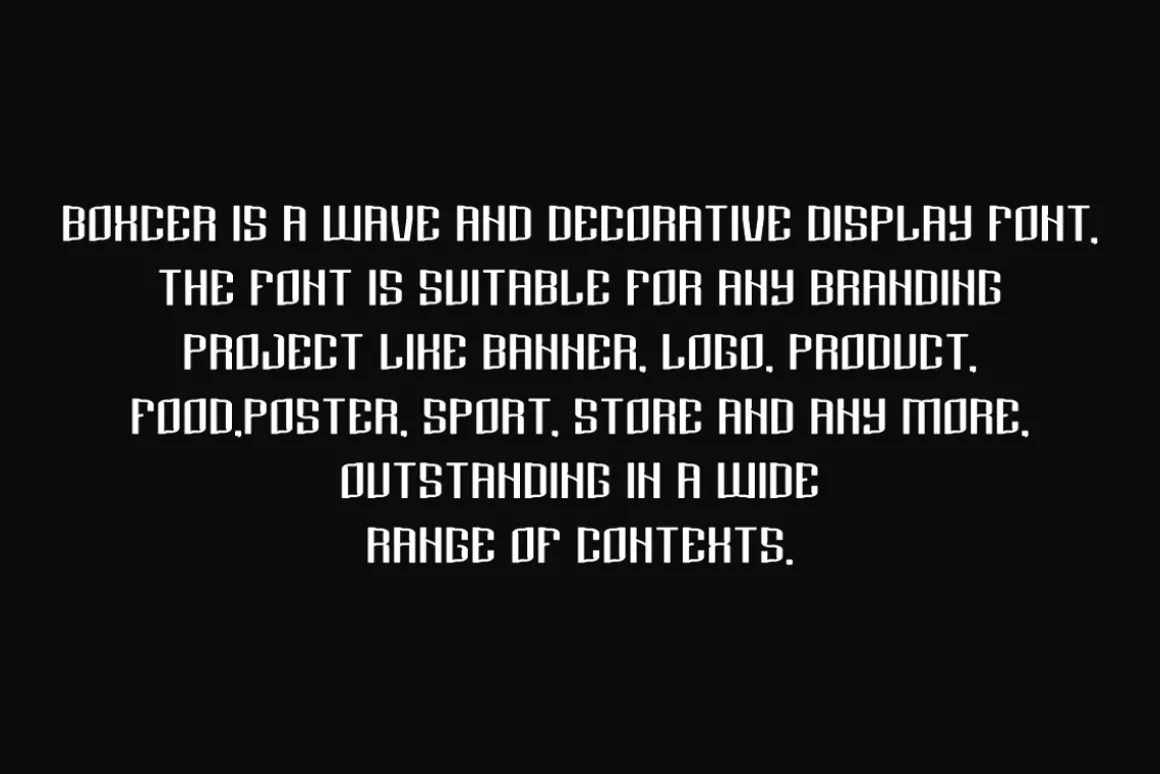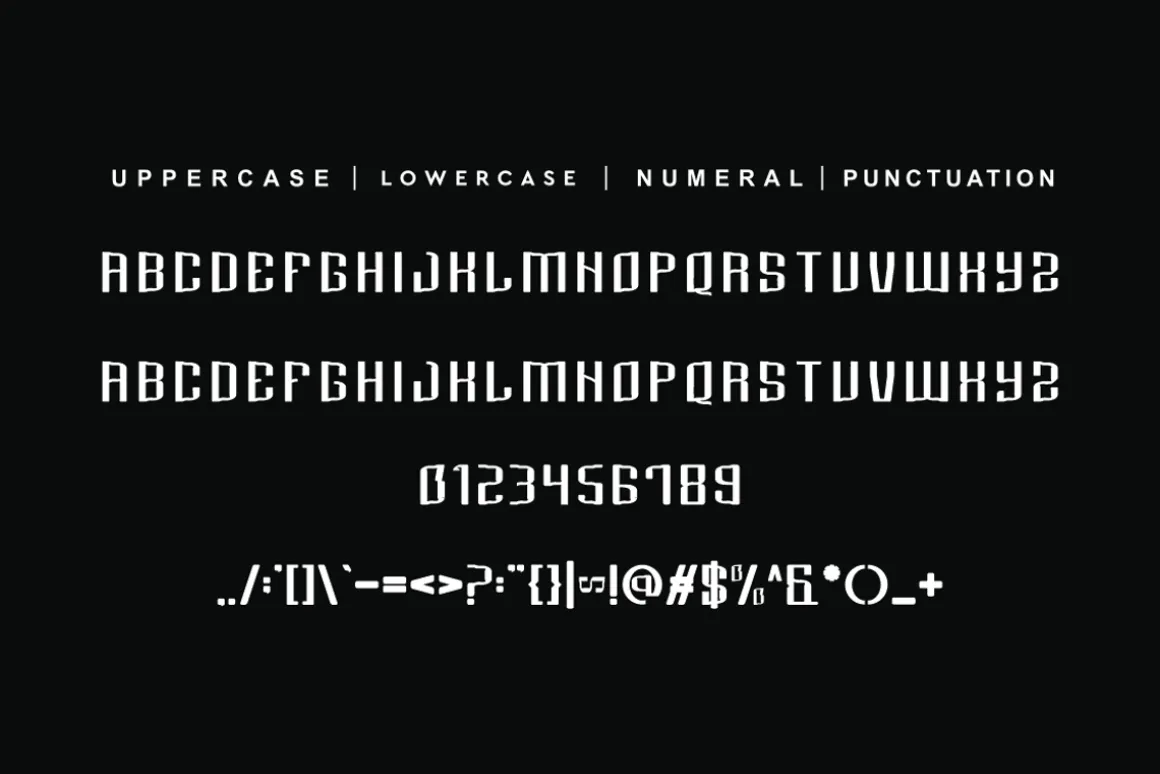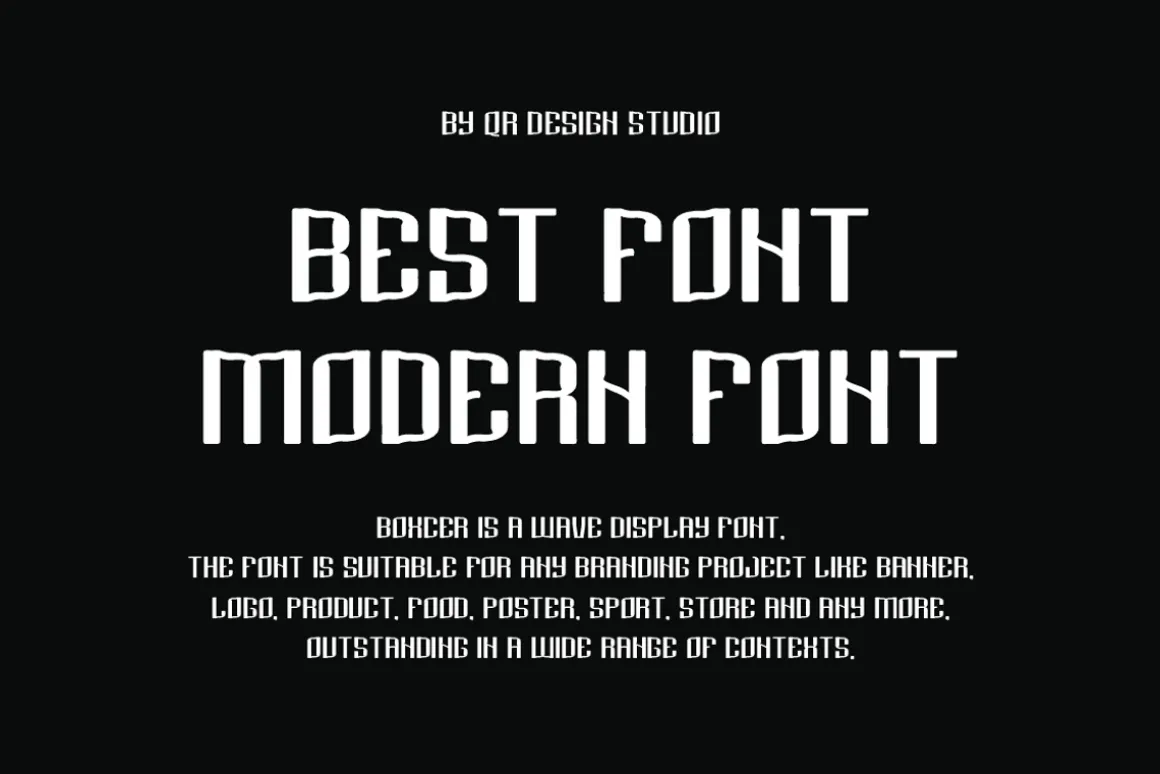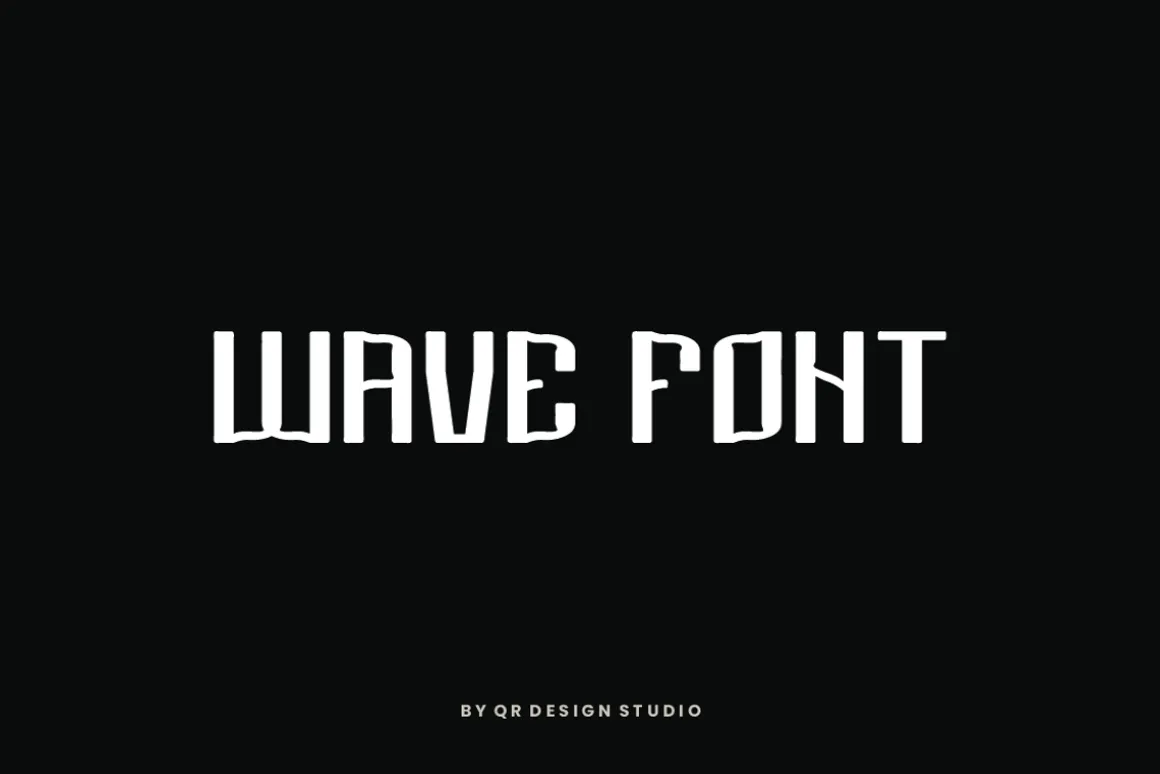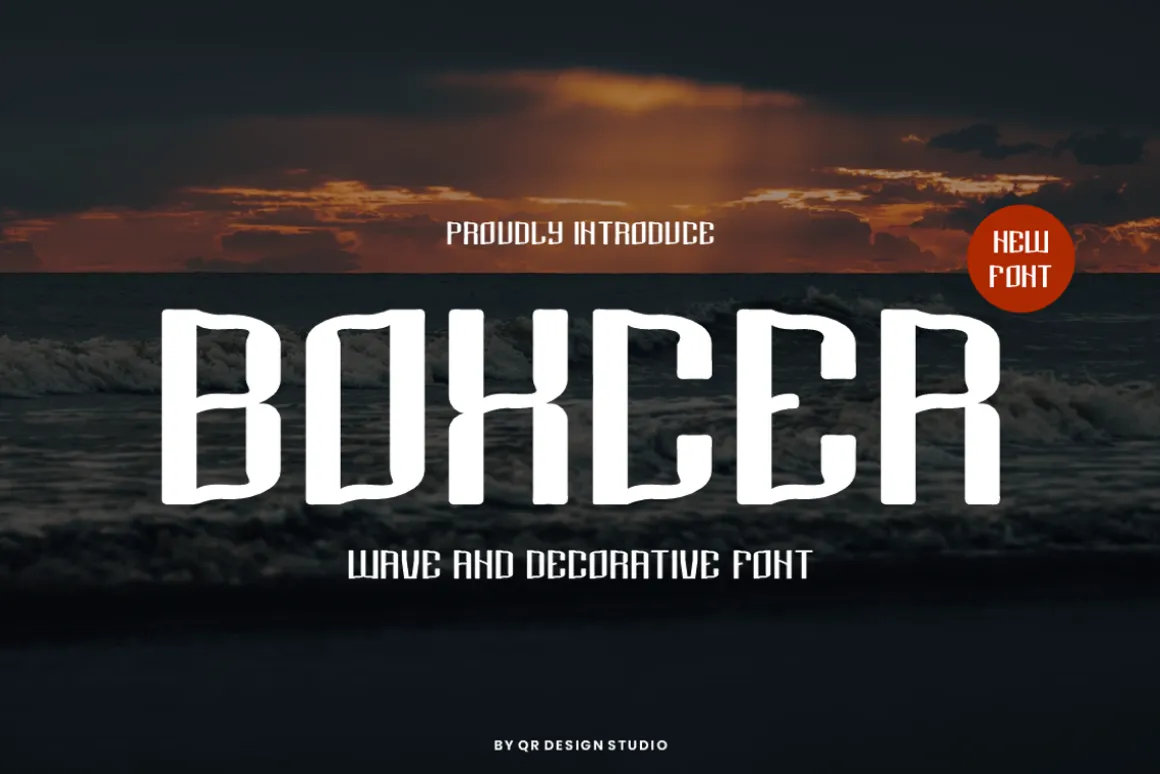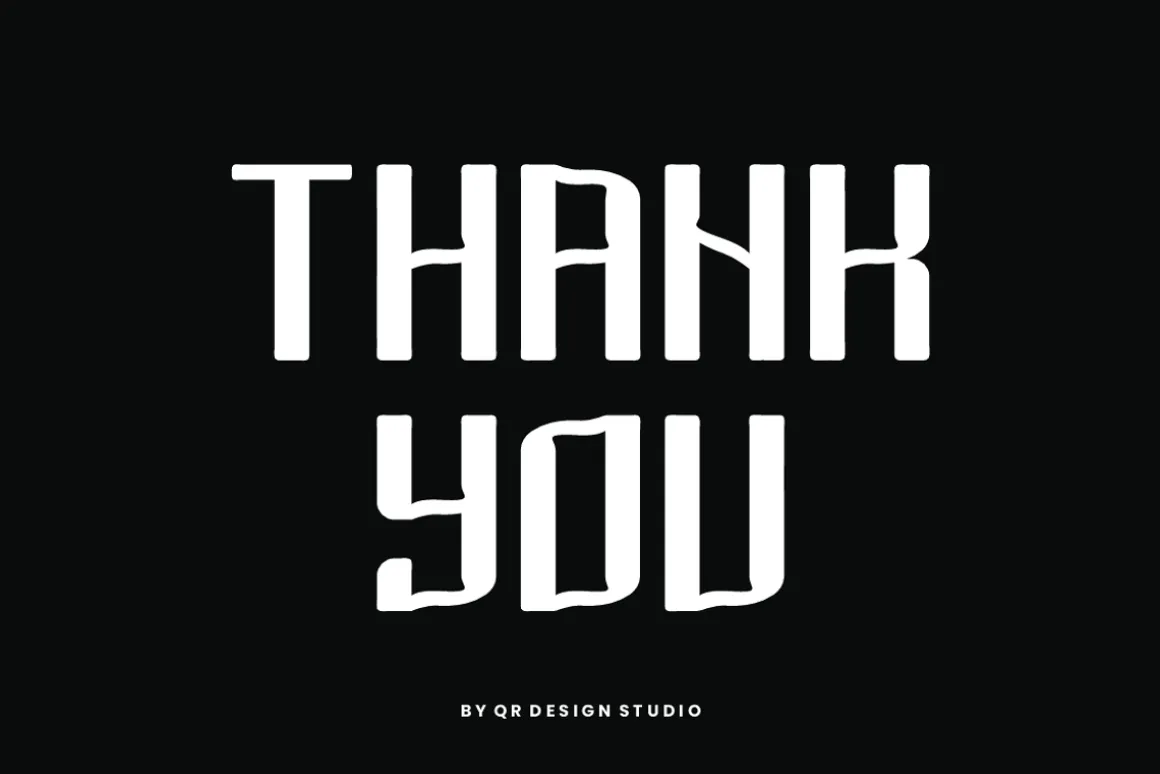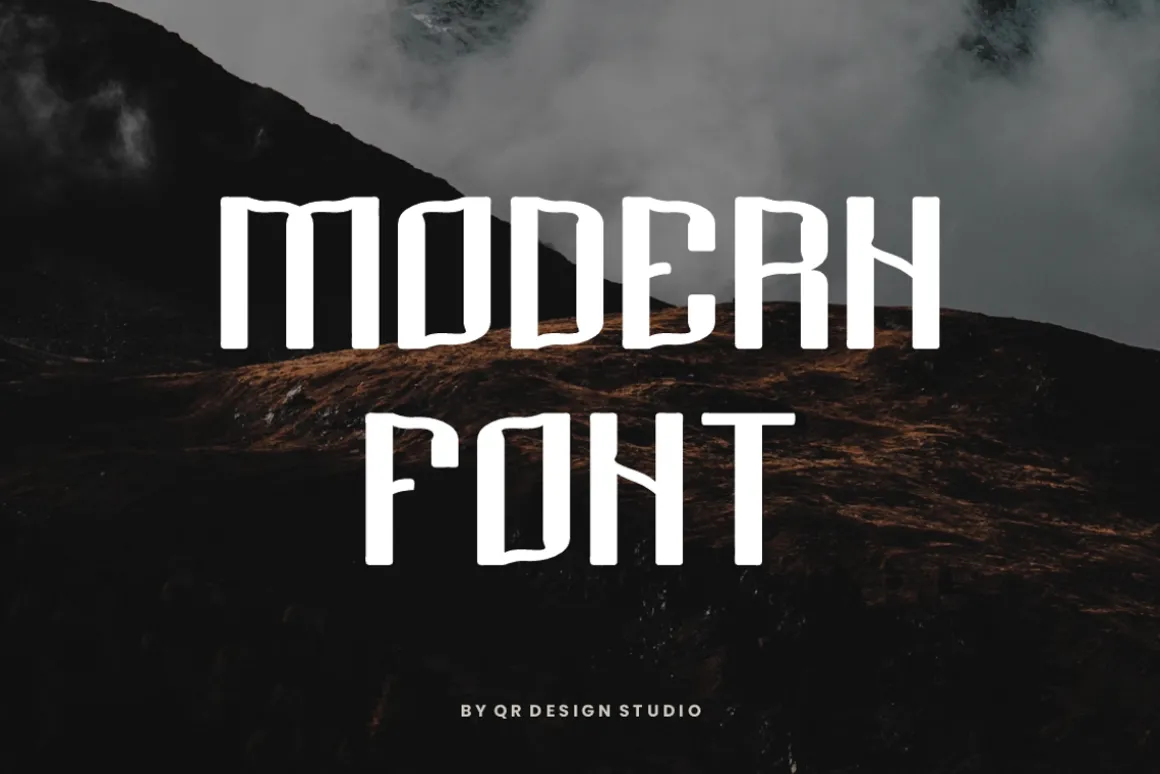
Boxcer Font is a modern and authentic display font.The font is suitable for any branding project like poster, logo, sport, and many more.Outstanding in a wide range of contexts.